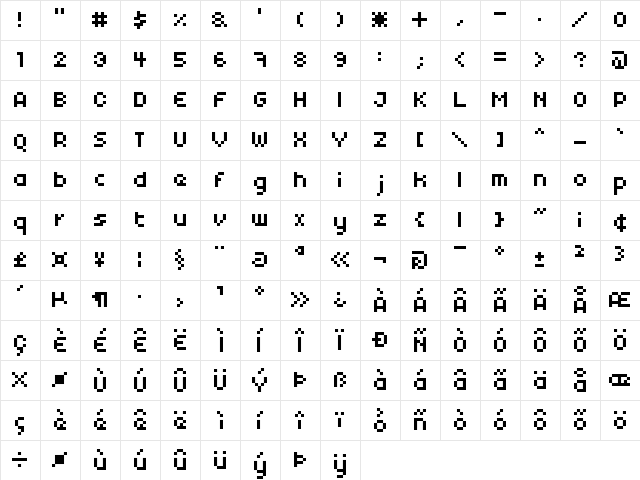
xpdr01 Regular
Design Context for xpdr01 Typeface
xpdr01 takes a measured approach to typography — its balanced proportions and neutral character make it a reliable workhorse for both digital and print work.